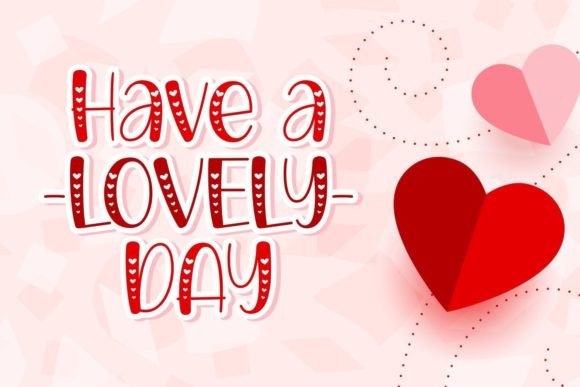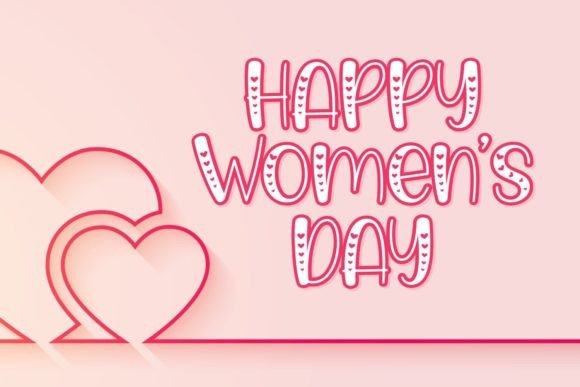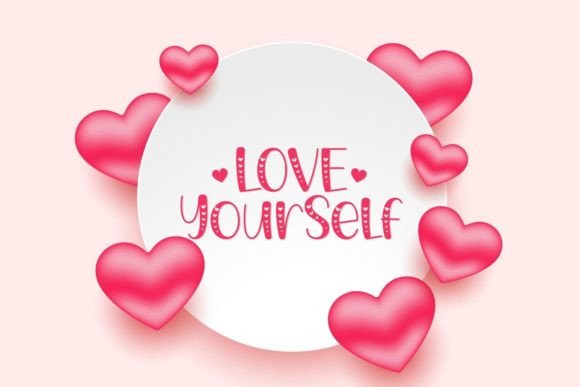
Introduction to Loji Lovely Font
Loji Lovely is a romantic decorative font with little heart ornaments.
Fill your designs with love, joy, and happiness with this beautiful typeface It is perfect for Valentine’s day projects, Mother’s day, anniversary gifts, and more.
Loji Lovely Font offers exceptional quality and versatility, making it a valuable addition to your design toolkit. Whether you’re creating for personal projects or commercial use, Loji Lovely Font delivers professional results.